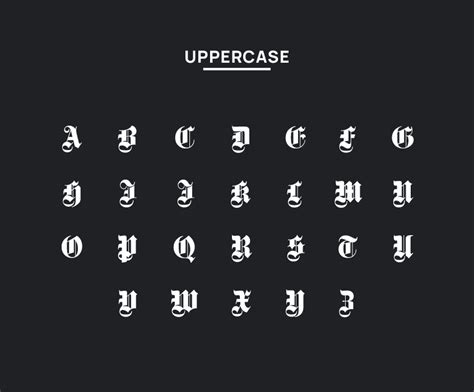
Web palm angels font generator & download is available free at fontbolt. Web palm angels font generator. The time is now 08:43. Enter your text, select a font, choose a font size, and pick your favorite colors. Palm angels is a luxury fashion label founded in 2015 by italian art director and photographer, francesco ragazzi. Web about palm angels font. The logo appears to be based on fette gotisch originally cut by. Web feb 12, 2021 at 10:04. Use our free palm angels font generator tool below to create your own custom design logo or image. Archive of freely downloadable fonts.